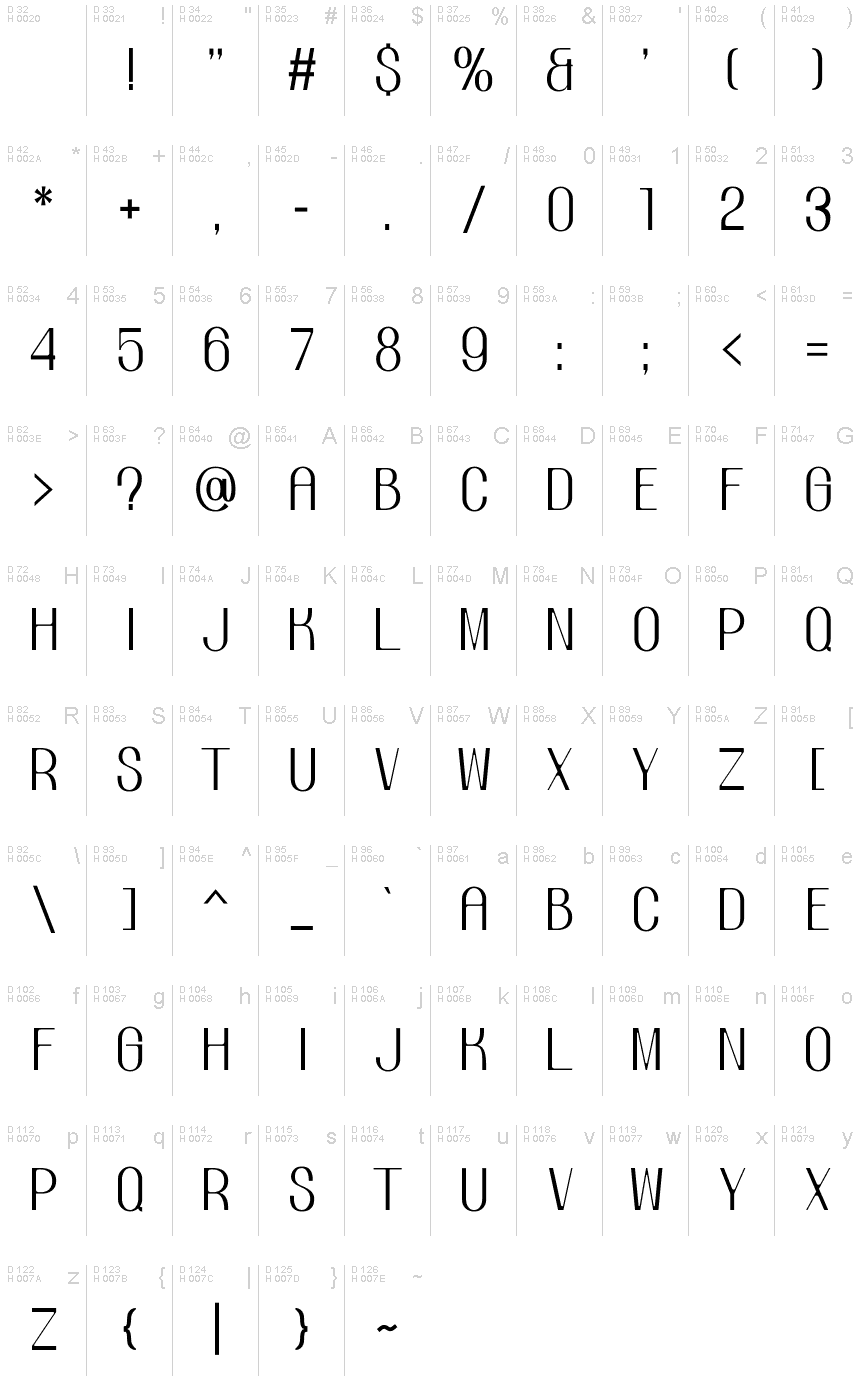
Buvica
Buvica is a semi-light, condensed sans-serif font designed by Yuge Afrianto. Its sleek and modern style makes it perfect for projects that require a professional yet stylish touch. Buvica's slim width allows for maximum space utilization, making it an excellent choice for headlines, logos, and branding materials. The semi-light weight adds a touch of elegance and sophistication to any design while keeping it legible at smaller sizes. Whether you're designing a fashion magazine or creating social media graphics, Buvica's unique style is sure to make your project stand out from the crowd.
Buvican is a stylish modern sans serif condensce display font. Minimalist character that allowing you to easily edit the designs. It is perfect for branding, wedding invites and cards, and maybe for some project.
Alternate some alphabet
Buvican Thin
Buvican Reguler
Buvican Bold